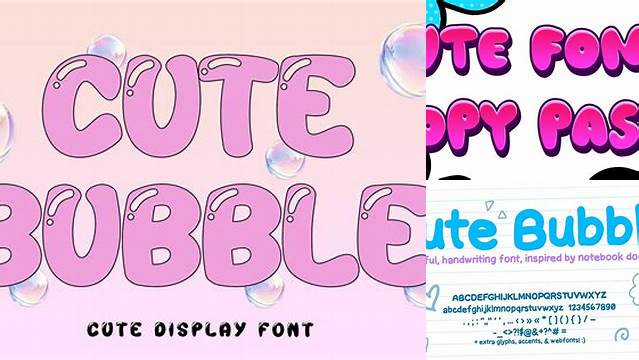
Get Cute Bubble Fonts: Copy & Paste Magic!
Hey everyone! Are you ready to jazz up your social media posts, spice up your messages, or add a touch of whimsy to your designs? If so, then you've come to the right place! Today, we're diving headfirst into the adorable world of cute bubble fonts – those playful, bubbly letters that scream fun and creativity. And the best part? You can easily copy and paste them anywhere you want! No complicated downloads or font installations are needed. We're going to explore everything you need to know about these delightful fonts, from where to find them to how to use them effectively. Get ready to add some serious personality to your text! Let's get started and bring a little bubble-tastic joy to your digital life. Buckle up, buttercups!
Cute Bubble Fonts: The Ultimate Guide
What Are Cute Bubble Fonts?
So, what exactly are we talking about when we say "cute bubble fonts"? Well, picture letters that look like they've been inflated with air, with rounded edges and a cheerful vibe. They often resemble the look of actual bubbles, hence the name! These fonts are designed to be eye-catching and playful, perfect for adding a touch of personality and fun to any text. They come in a variety of styles, from thick and bold to delicate and whimsical, and are great for expressing creativity! They're the antithesis of boring Times New Roman; they're the life of the party! They're typically used to grab attention and add a lighthearted feel, whether you're creating social media graphics, designing invitations, or simply want to make your messages stand out from the crowd. Think of them as the sprinkles on your digital sundae! Finding the perfect bubble font depends on the style you're after: some are more playful, some are elegant, and some are just plain silly, but they always look great! So, how do you find these fonts and how do you use them? Let's dive in!
Cute Bubble Fonts for Social Media
Social media is the perfect playground for cute bubble fonts! They're a fantastic way to grab attention and make your posts stand out from the crowd. On platforms like Instagram, Facebook, TikTok, and Twitter, where visual appeal is key, using bubble fonts can instantly elevate your content. Imagine a catchy caption written in a fun bubble font, or a bubbly username that attracts attention. The possibilities are endless! To make the most of bubble fonts on social media, consider these tips. First, use them strategically. Don't overdo it! A little bit of bubble font can go a long way. Use it for headlines, key phrases, or to emphasize important information. Second, choose fonts that fit your brand or aesthetic. Make sure the style aligns with the overall tone and message of your posts. Some fonts are more playful, while others are elegant, so consider your audience. Third, be aware of platform limitations. While most platforms support copy-and-paste functionality, some might have limitations on how custom fonts are displayed. However, the bubble effect should still be noticeable. Finally, experiment and have fun! Don't be afraid to try different fonts and styles to find what works best for you. By incorporating cute bubble fonts into your social media strategy, you can boost engagement and create a more memorable presence. Get ready to watch your followers go wild!
Bubble Fonts for Instagram: Level Up Your Profile
Instagram is a visual platform, and using cute bubble fonts can give your profile a major upgrade. You can use bubble fonts in several places, including your username, your bio, your captions, and your stories. For your username, a playful bubble font can make you stand out from the crowd. Choose a style that reflects your brand or personality to make a great first impression. In your bio, bubble fonts can help you summarize your profile and catch the eye of potential followers. Use bubble fonts for headlines or key phrases to highlight important information. When creating captions, using bubble fonts can make your posts more engaging and memorable. This is great for adding emphasis to key messages or creating a fun, playful tone. When you use bubble fonts in your stories, you can make your content look more vibrant and creative! Use bubble fonts to add text to your stories, create interactive polls, or simply add a touch of personality. To maximize the effectiveness of bubble fonts on Instagram, experiment with different styles and placements. See what works best for your content and your audience. Remember to use bubble fonts strategically, not excessively. A little can go a long way! By incorporating cute bubble fonts into your Instagram strategy, you can make your profile more visually appealing and attract more followers. Give it a try, and get ready to see the difference!
Bubble Fonts for Text Messages: Spice Up Your Chats
Who says your text messages have to be boring? Cute bubble fonts are a fun way to add some personality to your chats and make your messages more engaging. Imagine sending a message to your friends or family with your text in a playful bubble font! It's a great way to express yourself and show off your creative side. Before you can start using bubble fonts for text messages, you will need to find a bubble font generator, or have some already saved. You can type your desired text into the generator, and then copy and paste the output into your text messages. The appearance of the font may vary depending on the device and the messaging app you are using. Some devices and apps may have limited support for custom fonts. However, the bubble style should still be noticeable. Using bubble fonts in your texts is a great way to add a touch of whimsy and make your conversations more fun. It is a great way to make your messages stand out from the crowd. Use them for greetings, jokes, or just to express your excitement. Make your messages more memorable and enjoyable! With a few simple steps, you can transform your ordinary text messages into something extraordinary. Give it a try, and have fun! Your friends and family are going to love it!
Bubble Fonts for Graphic Design: Unleash Your Creativity
Are you a graphic designer, or do you simply enjoy creating your own graphics? Cute bubble fonts can be a fantastic addition to your design toolbox. You can use these fonts in a variety of projects, from creating logos and posters to designing social media graphics and invitations. They're perfect for adding a playful, eye-catching touch to your designs! When using bubble fonts in your graphic design, consider these tips. First, choose the right font style for your project. Some fonts are more playful, while others are elegant. Match the font style to the overall tone and message of your design. Second, use bubble fonts strategically. Don't overdo it! They work best as headlines, titles, or accents. Third, pay attention to readability. Ensure that your bubble font is easy to read, especially when used in smaller sizes. You want your audience to understand your message! Consider the color and background of your design and choose a font color that contrasts well. Finally, experiment with different effects and combinations. You can combine bubble fonts with other design elements to create unique and visually appealing compositions. You can add shadows, outlines, or other effects to enhance the font and make it even more appealing. Whether you're a seasoned designer or just starting, incorporating cute bubble fonts can open up a world of creative possibilities. So go ahead, unleash your creativity, and have fun designing!
The Future of Design: Cute Bubble Fonts in a Changing World
As the design world evolves, cute bubble fonts continue to adapt and stay relevant. The future of design is all about combining creativity with functionality. As design trends change, so do the best practices for the use of cute bubble fonts. Expect to see these fonts incorporated into projects, such as augmented reality experiences and interactive websites. As technology evolves, the font will evolve too. Whether it is a website or an app, cute bubble fonts will have a place. By keeping up with these trends, you can harness the power of cute bubble fonts. Get ready to create awesome designs!